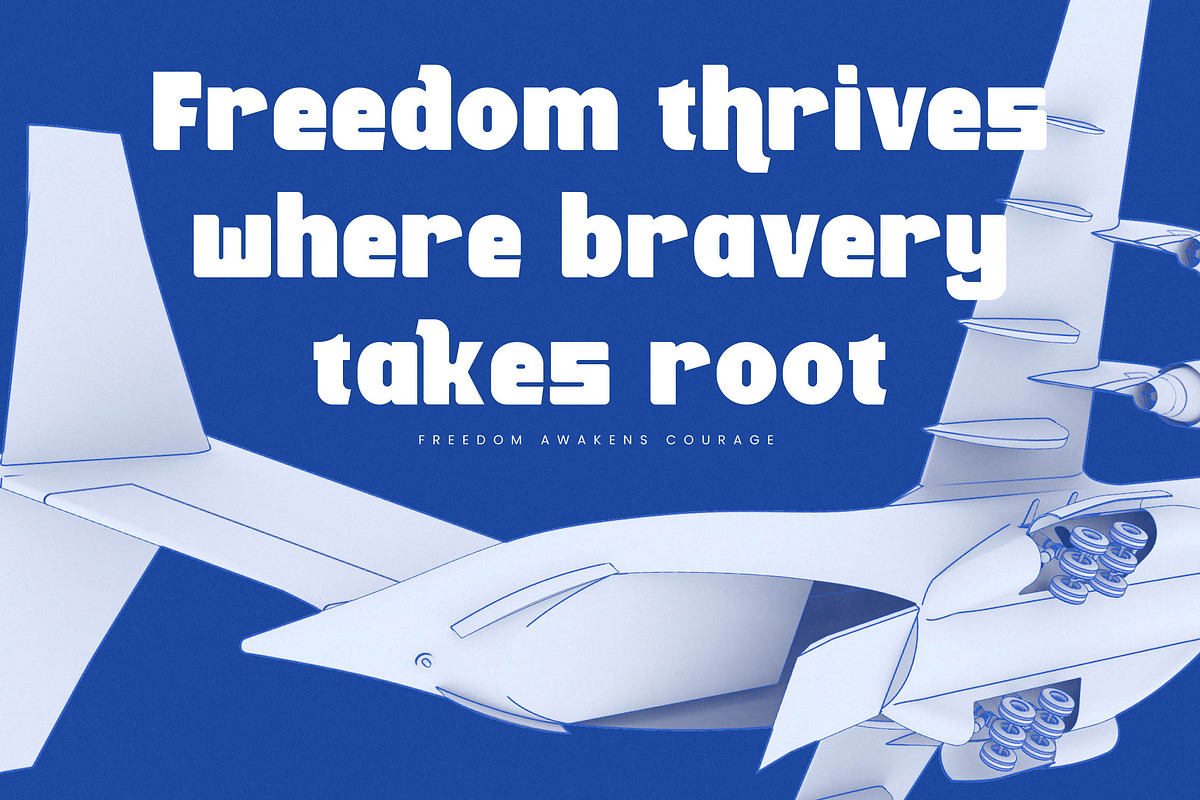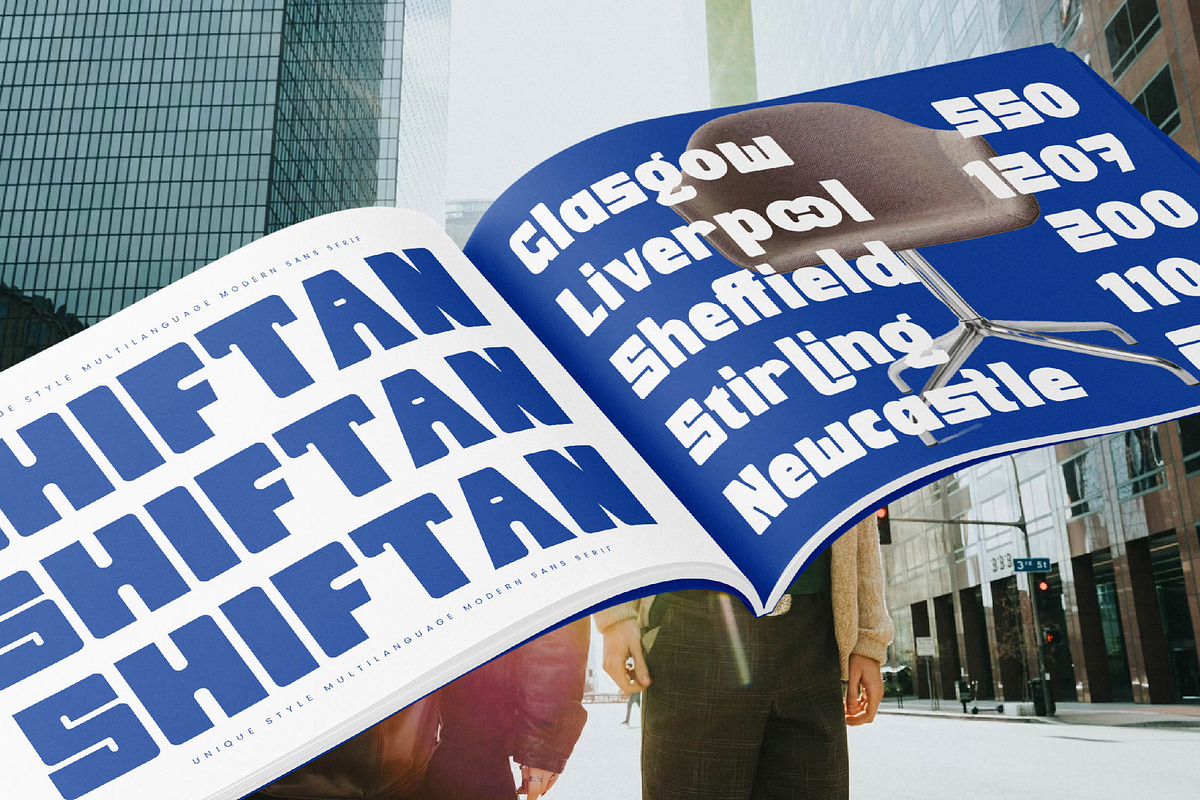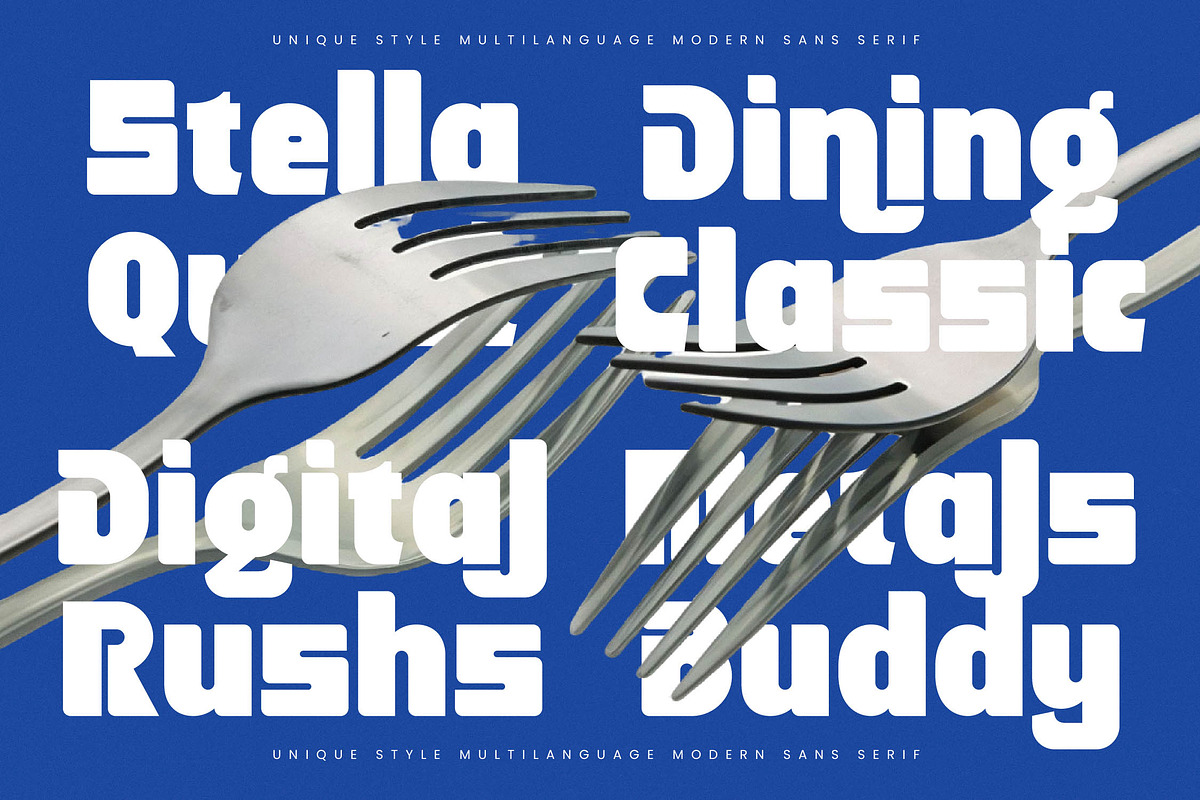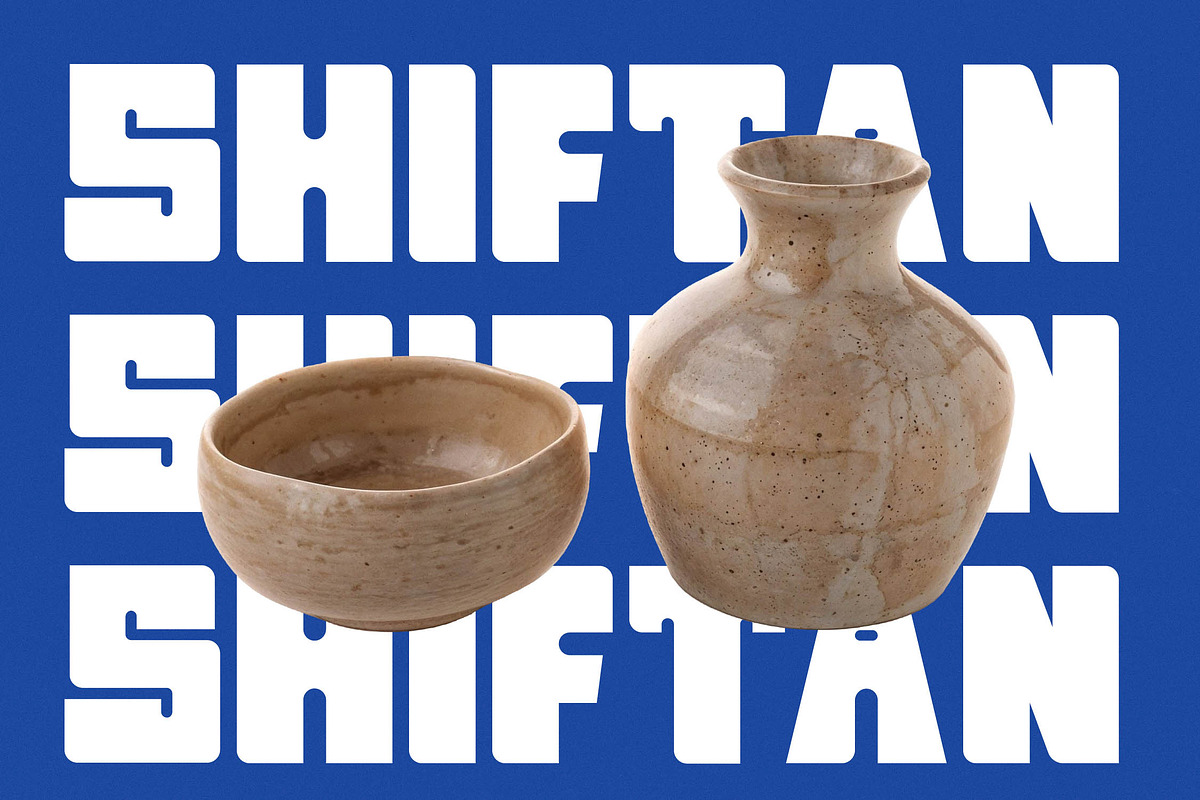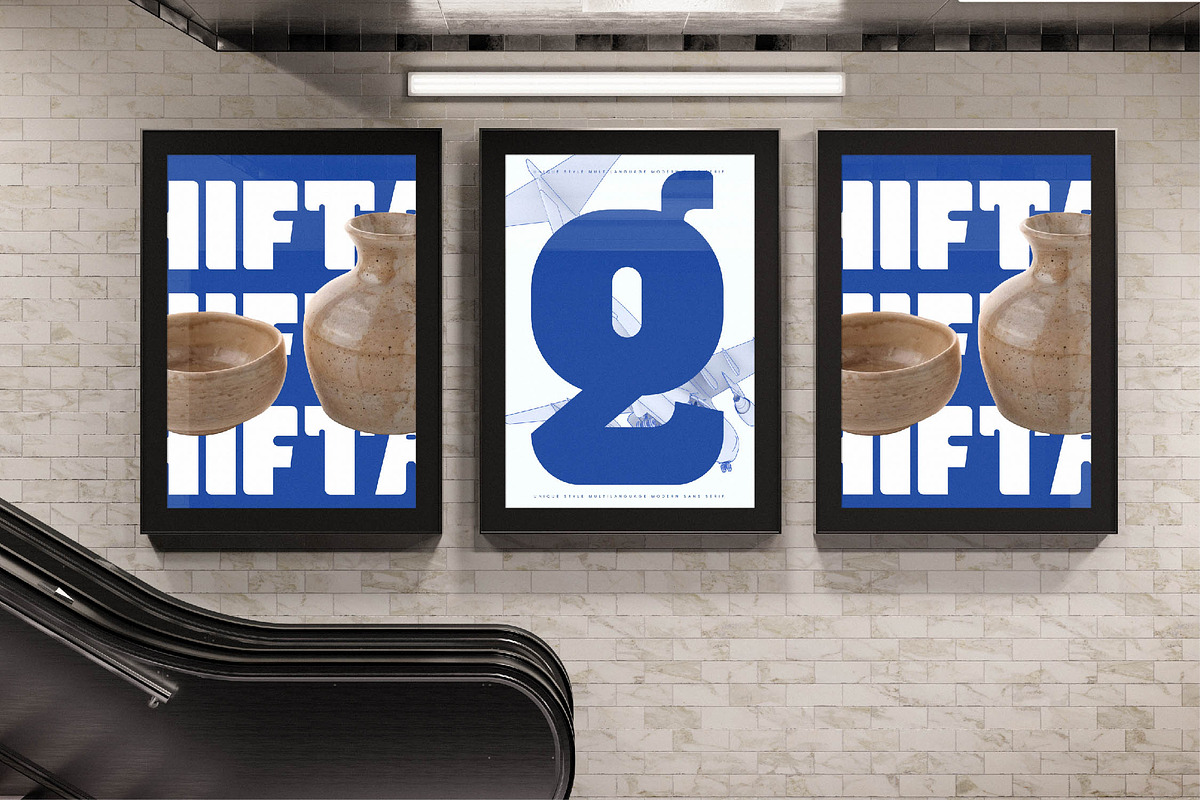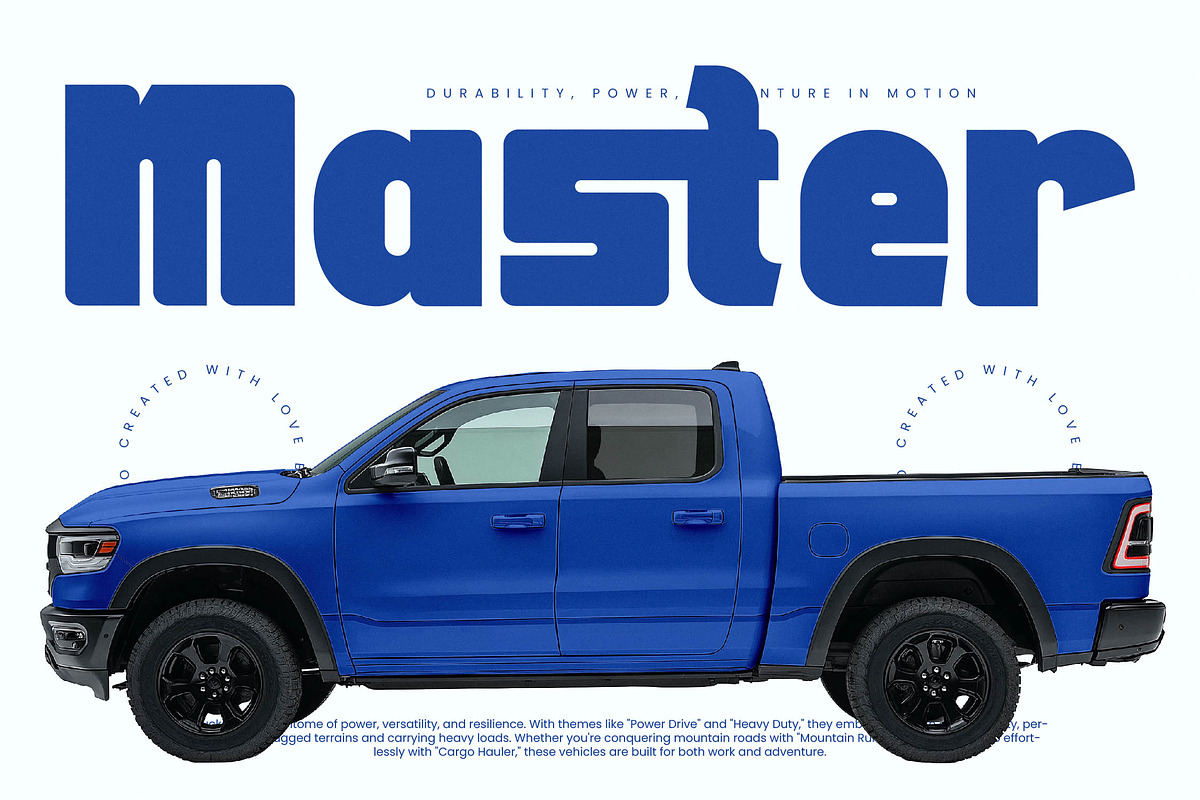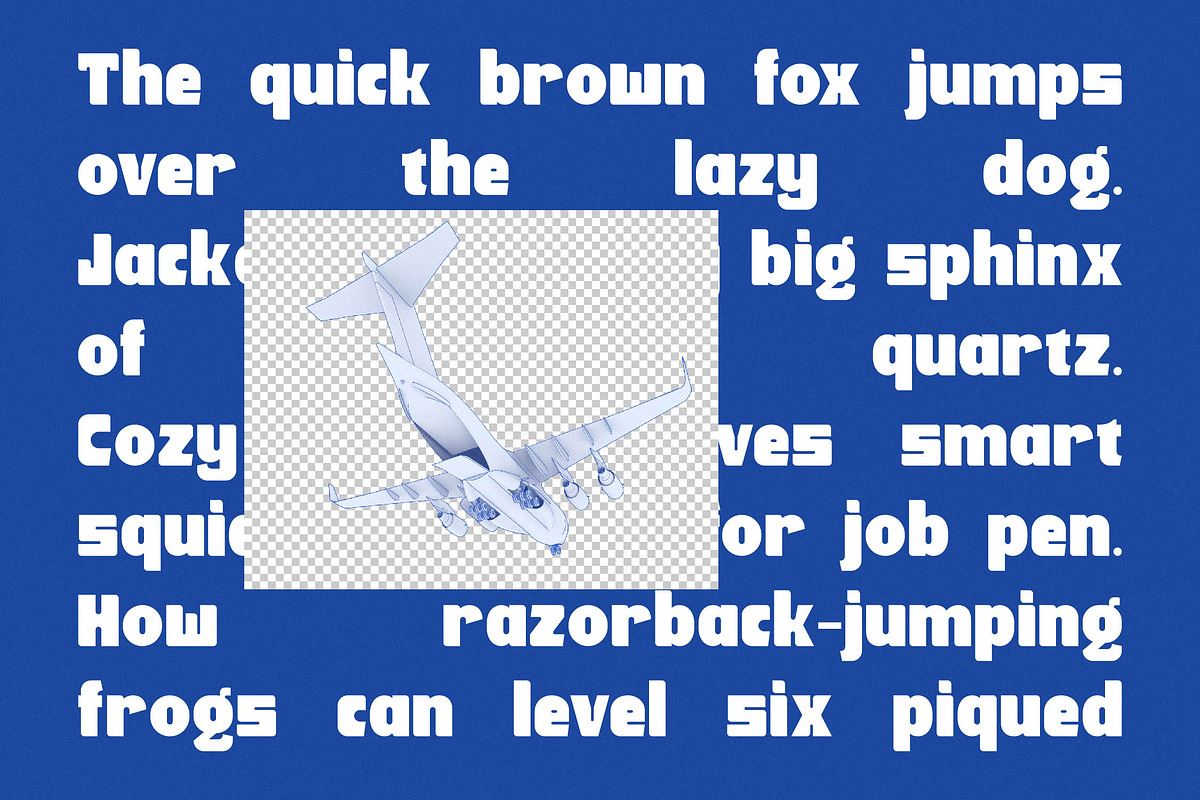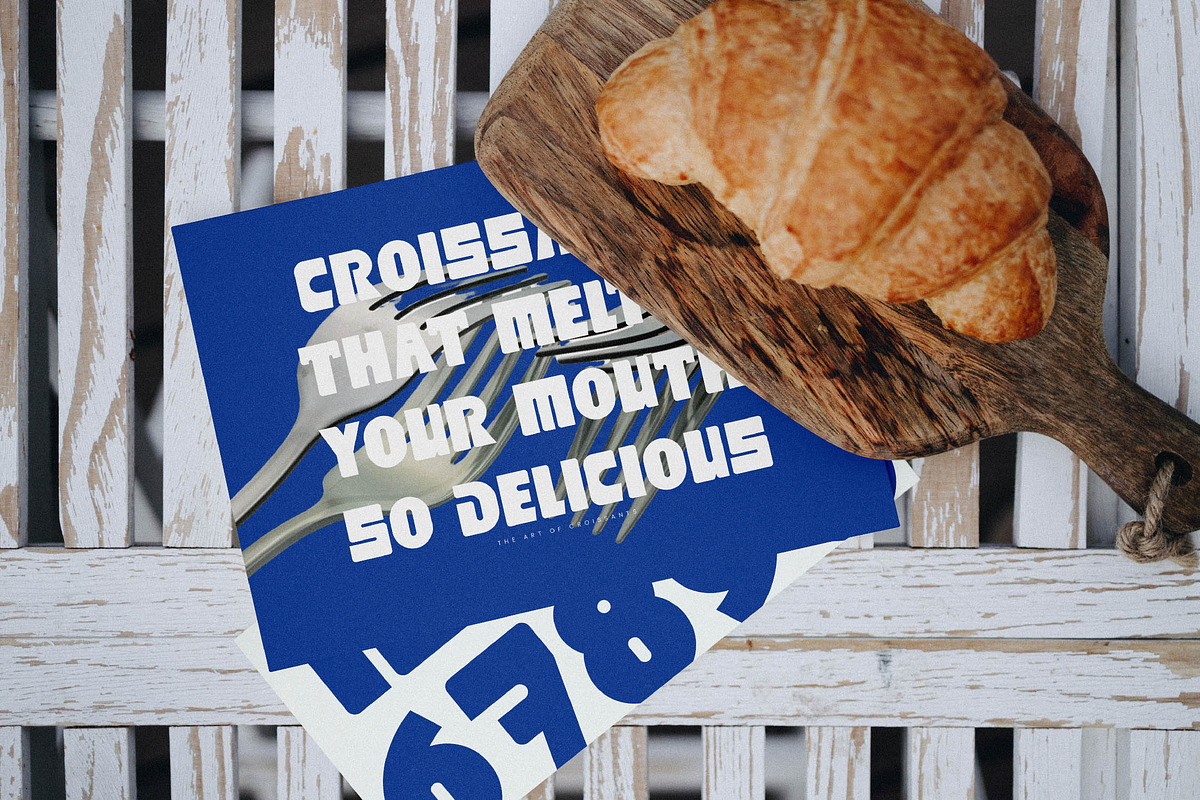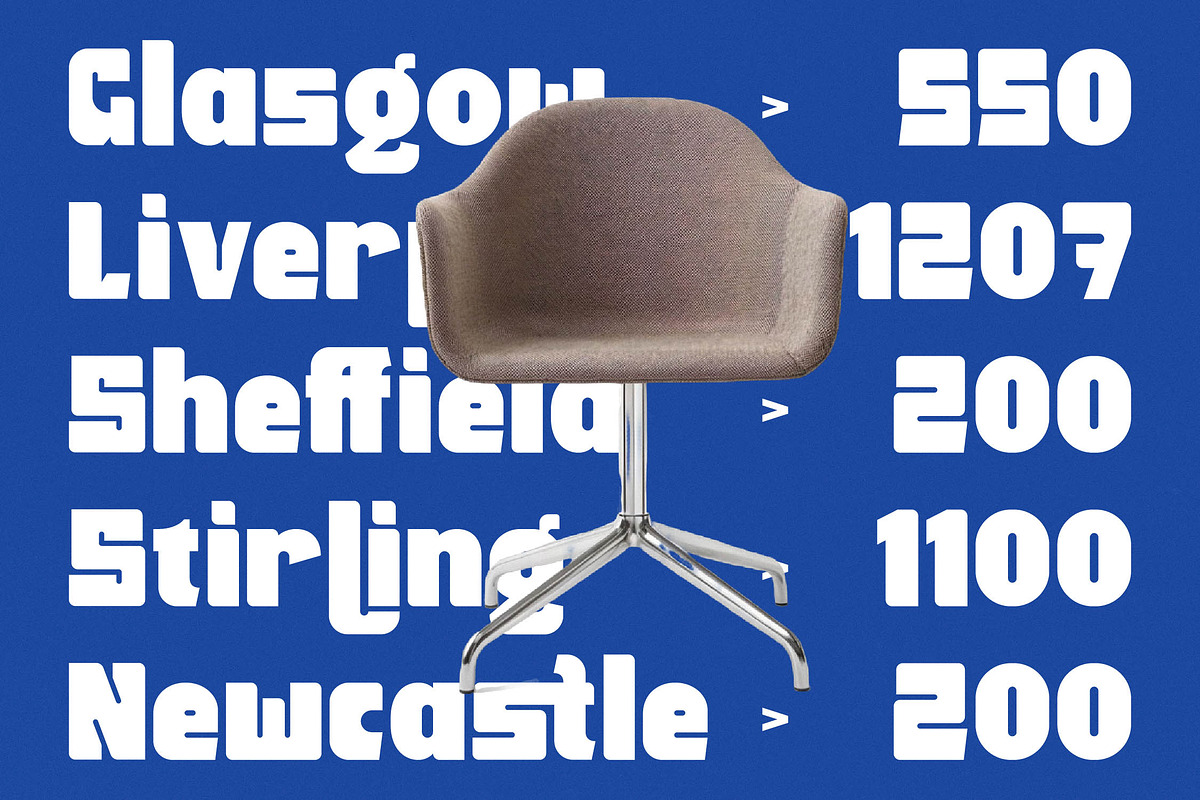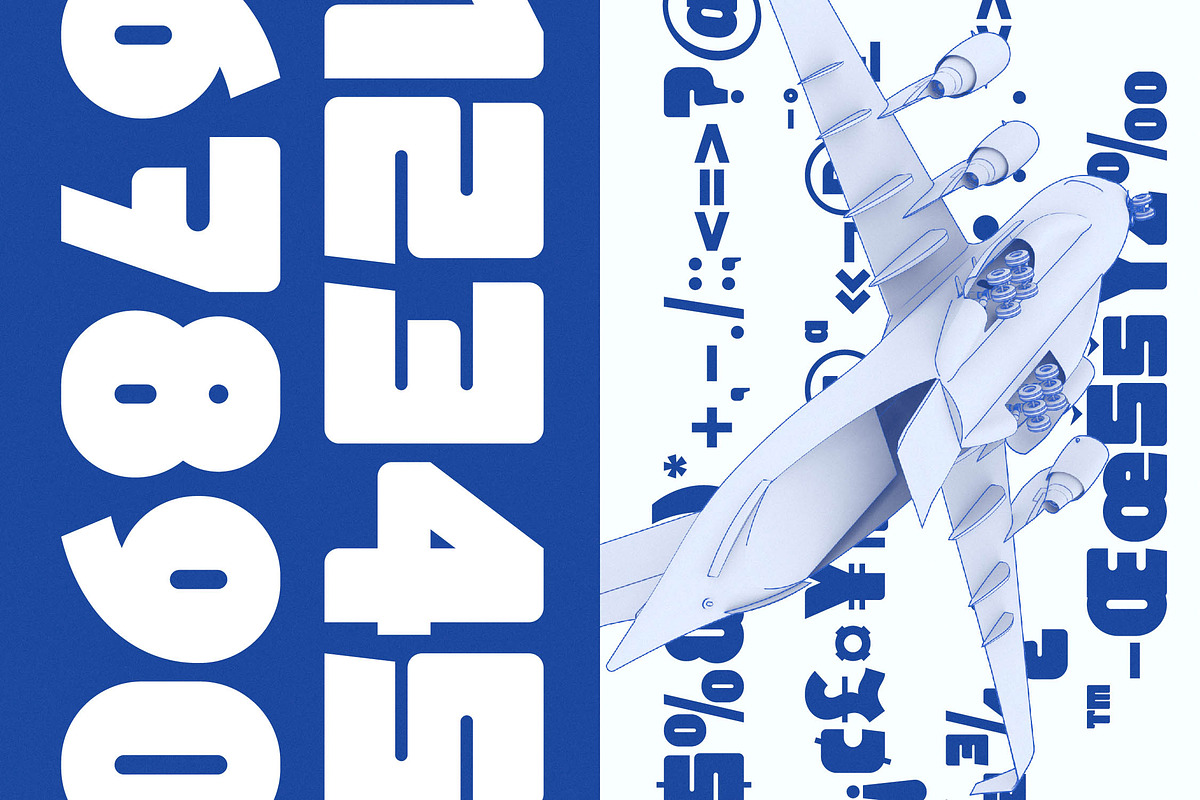
Shiftan Bold Modern Display Sans
Shiftan is a commanding force in contemporary typography, designed to elevate visual narratives with its bold presence and uncompromising geometry. This typeface strikes a perfect balance between technical precision and artistic flair, ensuring your message is felt as much as it is read.
Inspired by the sleek aerodynamics of modern aviation and industrial engineering, this font captures the essence of speed and innovation. It translates the structural integrity of high-performance machinery into a fluid, character-rich alphabet that feels both grounded and visionary.
For designers seeking a modern serif display or a high-impact sans, this typeface delivers a luxury typography experience with a distinct high-contrast serif aesthetic in its unique cutouts. It is the ultimate editorial font for projects that require a massive branding impact and a touch of futuristic sophistication.
Tapping into the current modern serif trend of utilizing bold, expressive shapes, this typeface stands out among editorial display fonts for its unique construction. It perfectly represents the shift toward character-driven typography where every letterform serves as a standalone piece of art.
This versatile workhorse is ideal for logo design, high-end branding, and avant-garde editorial layouts that need to command attention. Whether you are designing for luxury packaging, a high-concept wedding invitation, or the latest collection in fashion, its bold weights provide instant authority.
The font is packed with creative features including unique ligatures and stylistic alternates that allow for custom typographic expressions. With comprehensive multilingual support and a full set of international characters, it ensures your designs remain consistent and professional across global markets.
- Ligature 36 Alternate 35